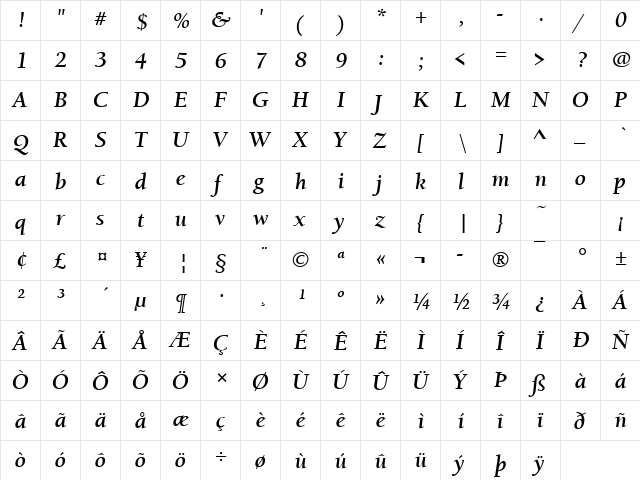
BerkeleyOldStyItcT Bold Italic
Design Context for BerkeleyOldStyItcT Typeface
BerkeleyOldStyItcT offers clean, dependable letterforms without strong stylistic allegiance, making it a practical choice for designers who need flexibility. Its italic angle brings a sense of urgency and motion to the letterforms. Its bold stroke weight gives it real presence on the page.
Pro Tip: Use BerkeleyOldStyItcT for emphasis, pull quotes, and subheadings where its slanted energy can add rhythm to the layout.